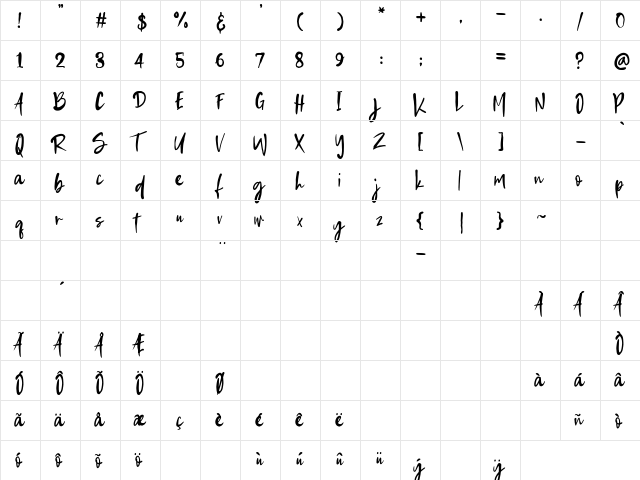
Stambaugh Regular
| Designer | Nico Muslib |
Design Context for Stambaugh Typeface
Stambaugh is a composed and adaptable typeface that performs quietly and consistently across a wide range of design contexts.